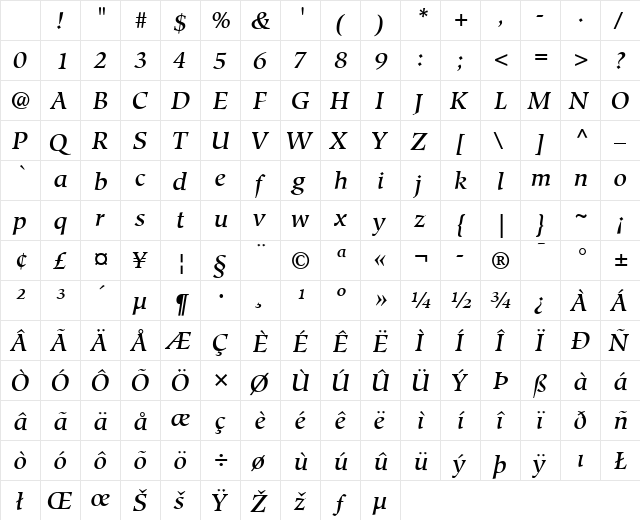
Complete Hiroshige LT Medium Italic glyph index. Displaying only characters natively supported by Hiroshige LT Medium Italic font.
Hiroshige LT Medium is a composed and adaptable typeface that performs quietly and consistently across a wide range of design contexts. The slanted form adds forward momentum and visual energy. Its slender proportions lend an understated elegance to any composition.